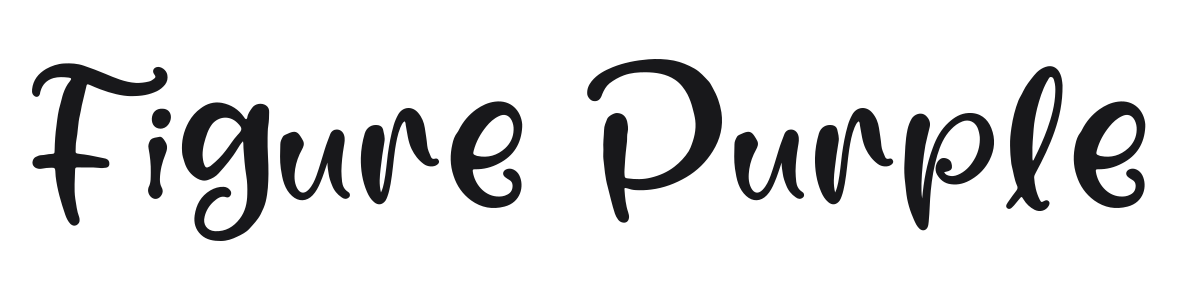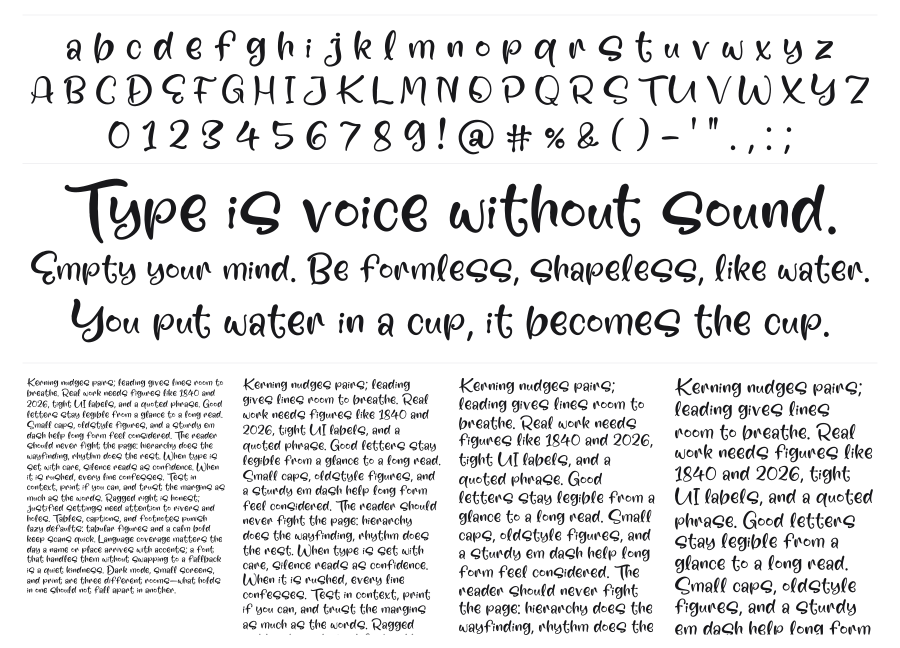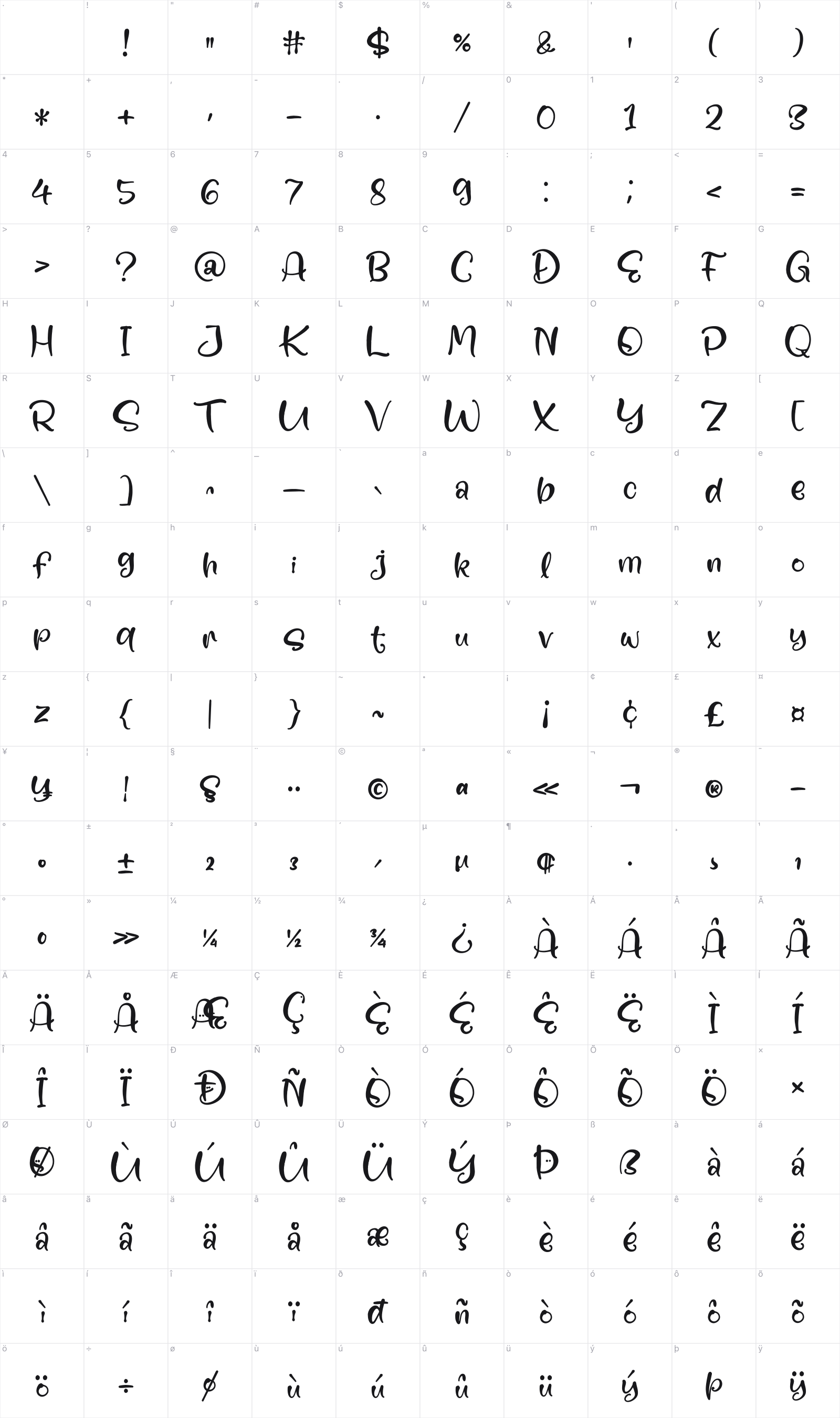
Figure Purple
Figure Purple is a bold casual script with a lively, hand-lettered feel and rounded brush-style strokes. The characters vary naturally in height and angle, creating an informal rhythm that feels spontaneous without being sloppy. It works well for anything that needs warmth and personality at display sizes.